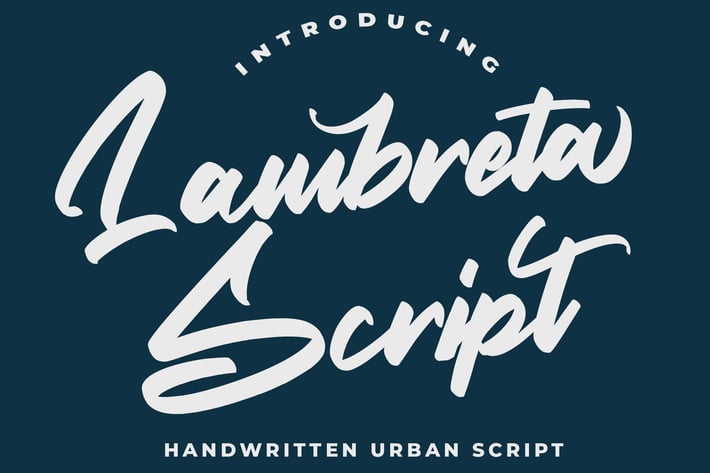
Lambreta Script Font
Introducing a new font called Lambreta inspired by urban script fonts with sharp and beautiful letters that create fonts that are modern, tendy and elegant.
Lambreta came with opentype features such stylistic alternates, stylistic sets & ligatures good for logotype, poster, badge, book cover, tshirt design, packaging and any more.